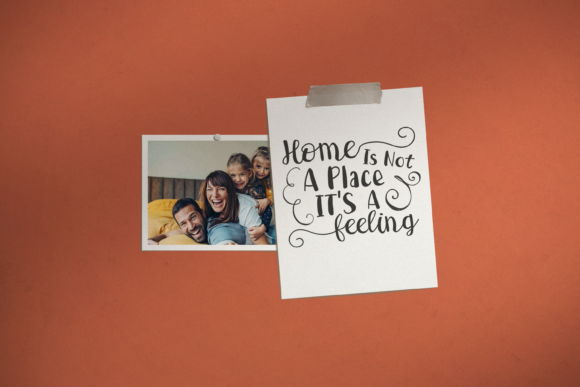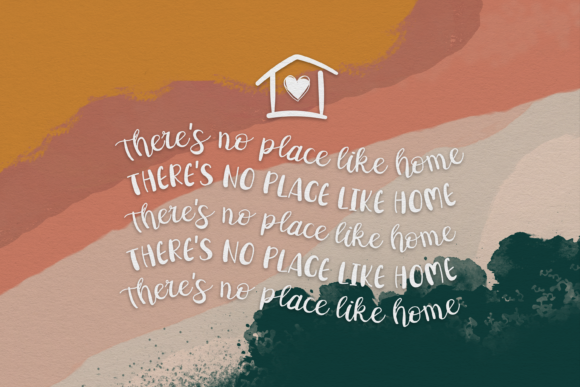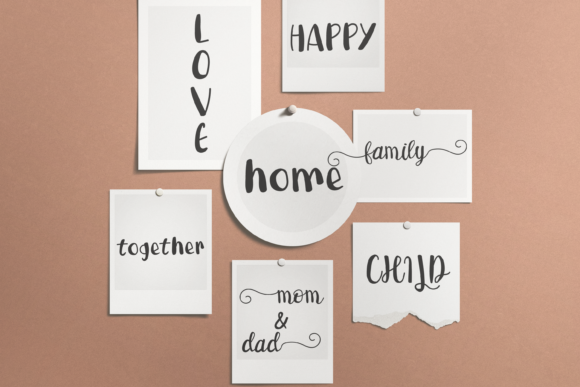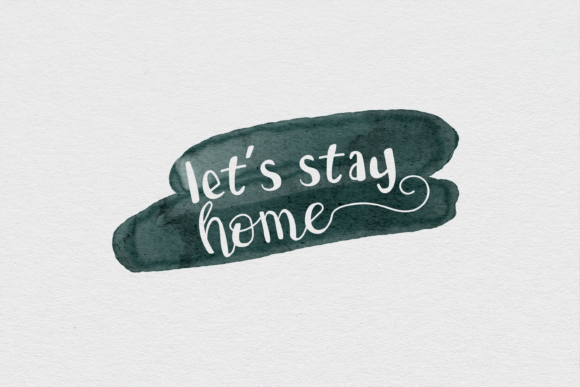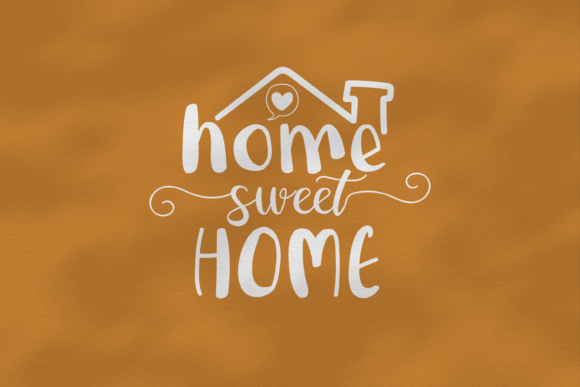
Home Sweet Home Duo Font
About Home Sweet Home Duo Font
Home Sweet Home Duo consists of two fonts (script and display) designed to complement each other perfectly. Together or apart, the fonts are ideal for adding a chic and cheery touch to your crafts.